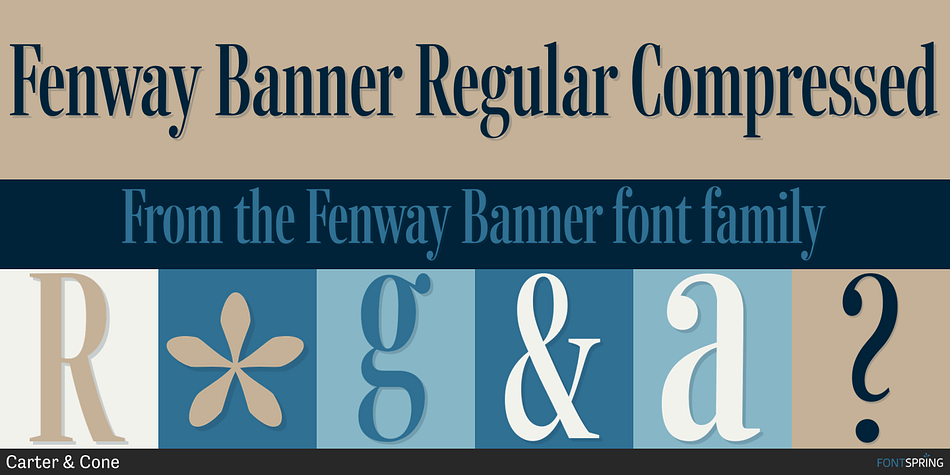
Fenway Banner Regular Compressed
Designed by Richard Lipton, Jill Pichotta and Matthew Carter, Fenway Banner is a display serif, serif and slab serif font family. This typeface has forty styles and was published by Carter & Cone.
Fenway is a neoclassical serif design initially commissioned by Sports Illustrated. It has excellent copyfit and strong color—precisely the qualities needed for rigorous book typography and demanding publication design. Matthew Carter designed the Romans to be robust and the Italics economic, both holding the potential to be stalwart mainstays for any typographic designer. Carter & Cone’s Fenway is available in 4 widths and 5 weights, Light to Black, with italics, for a total of 40 styles.